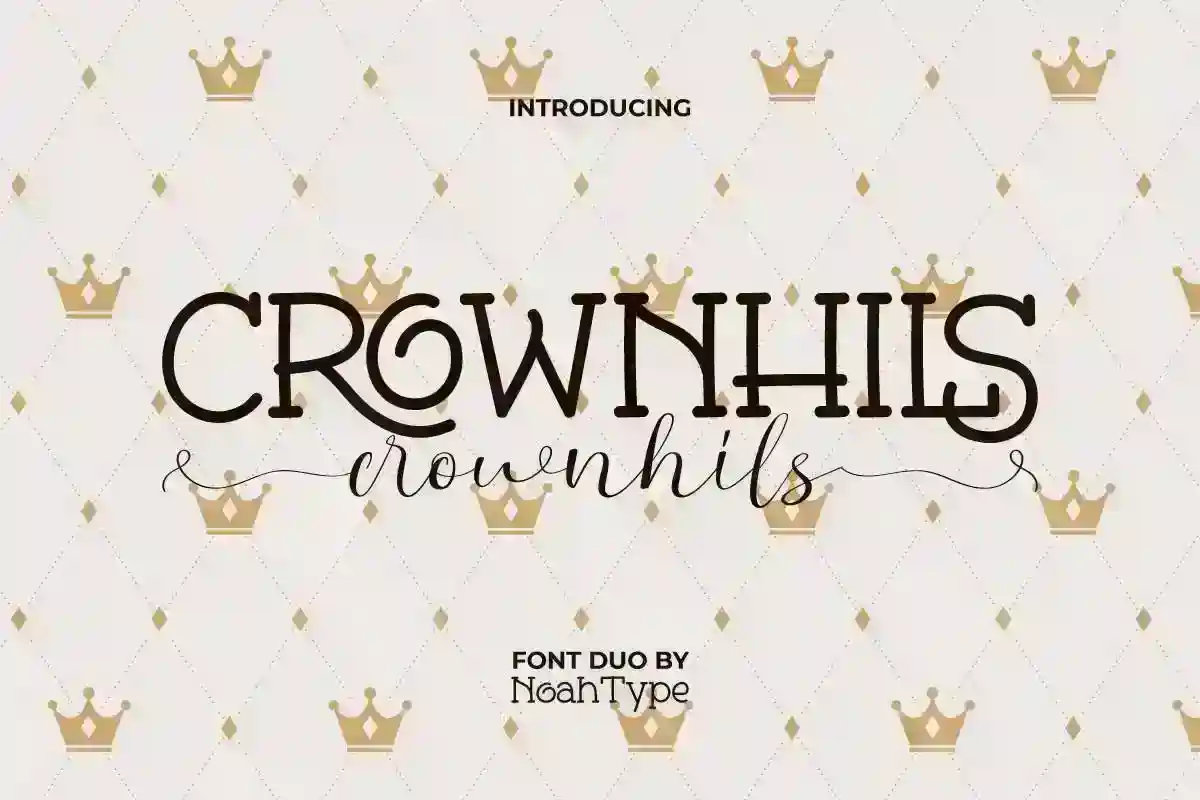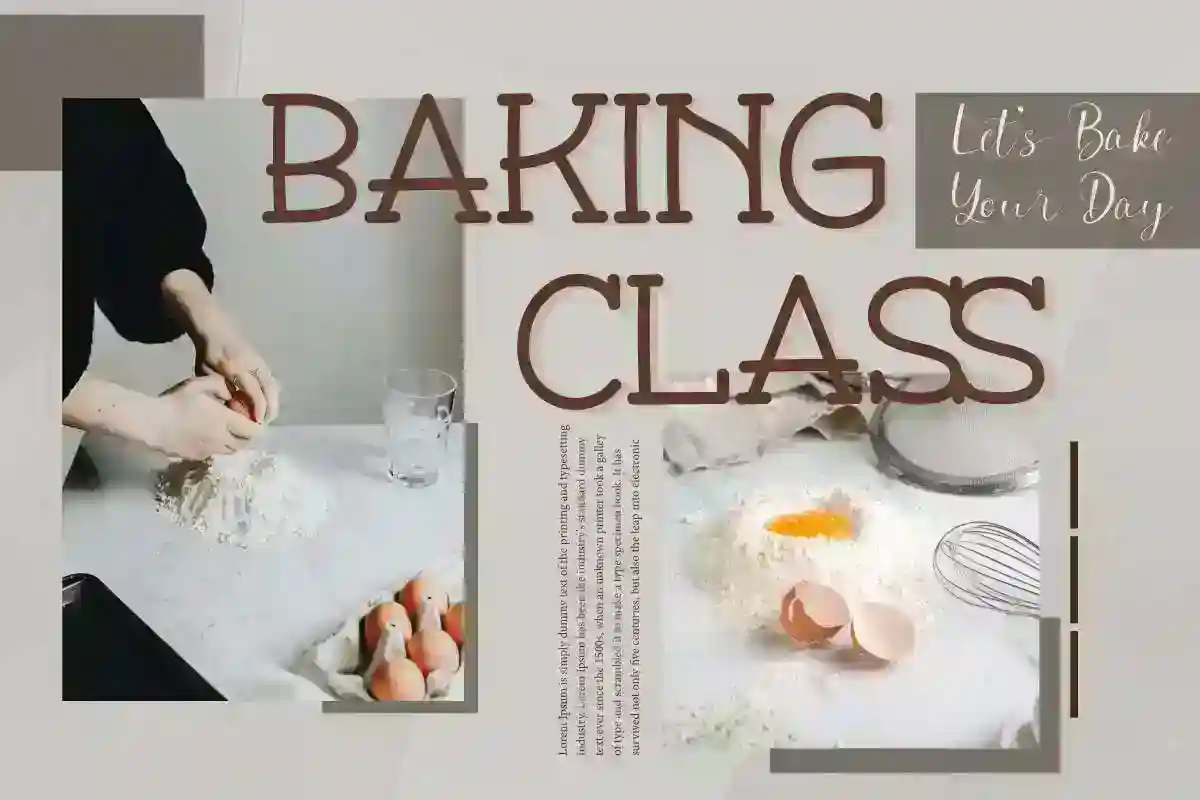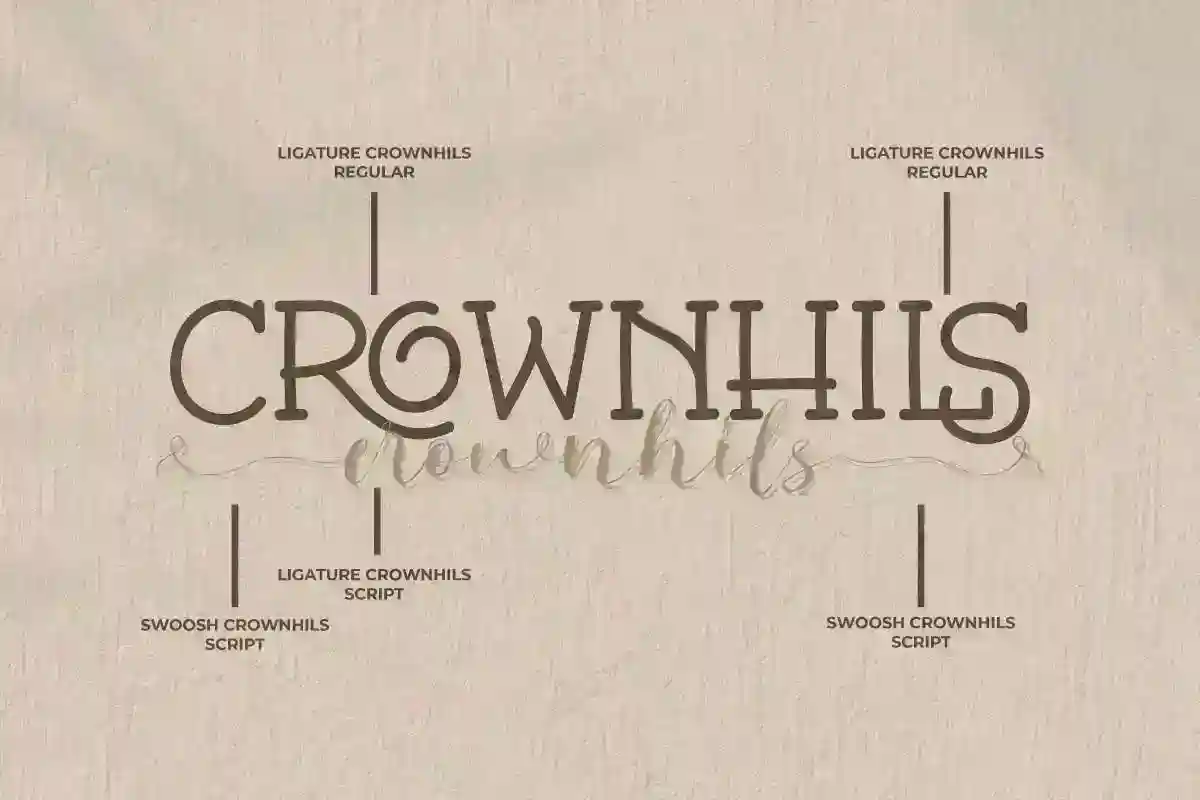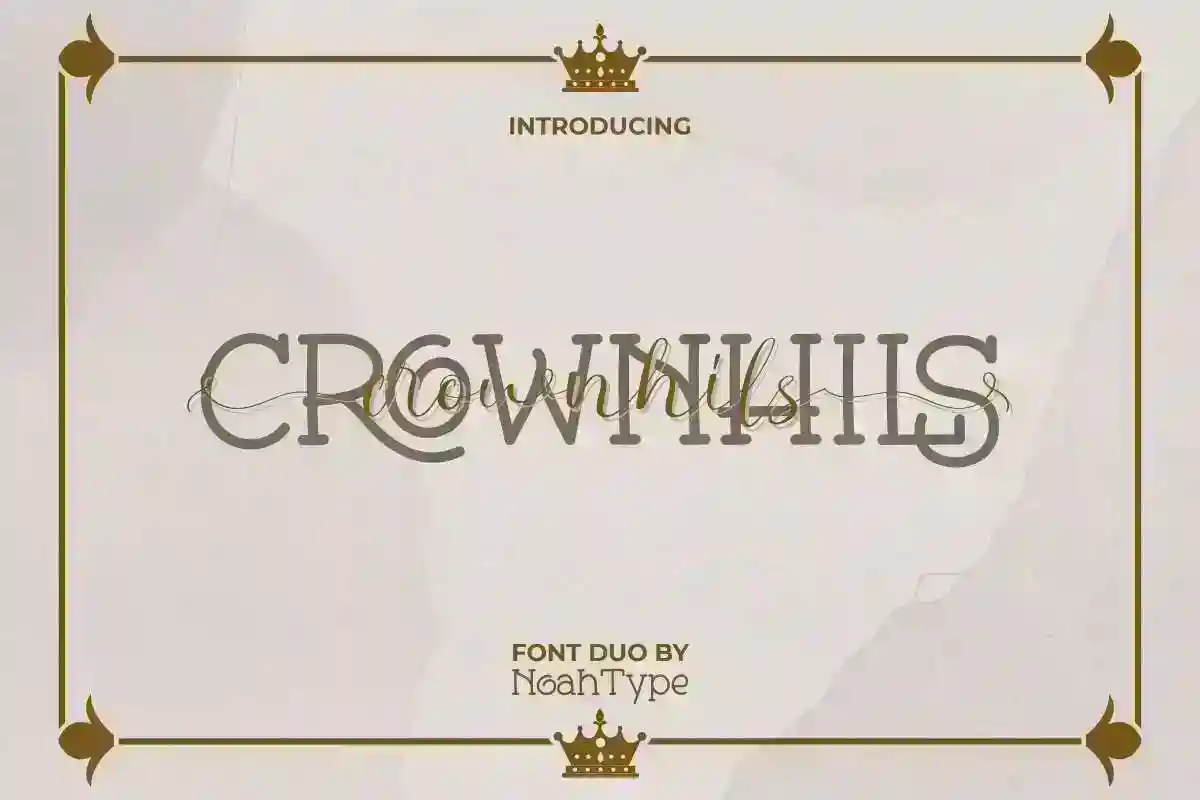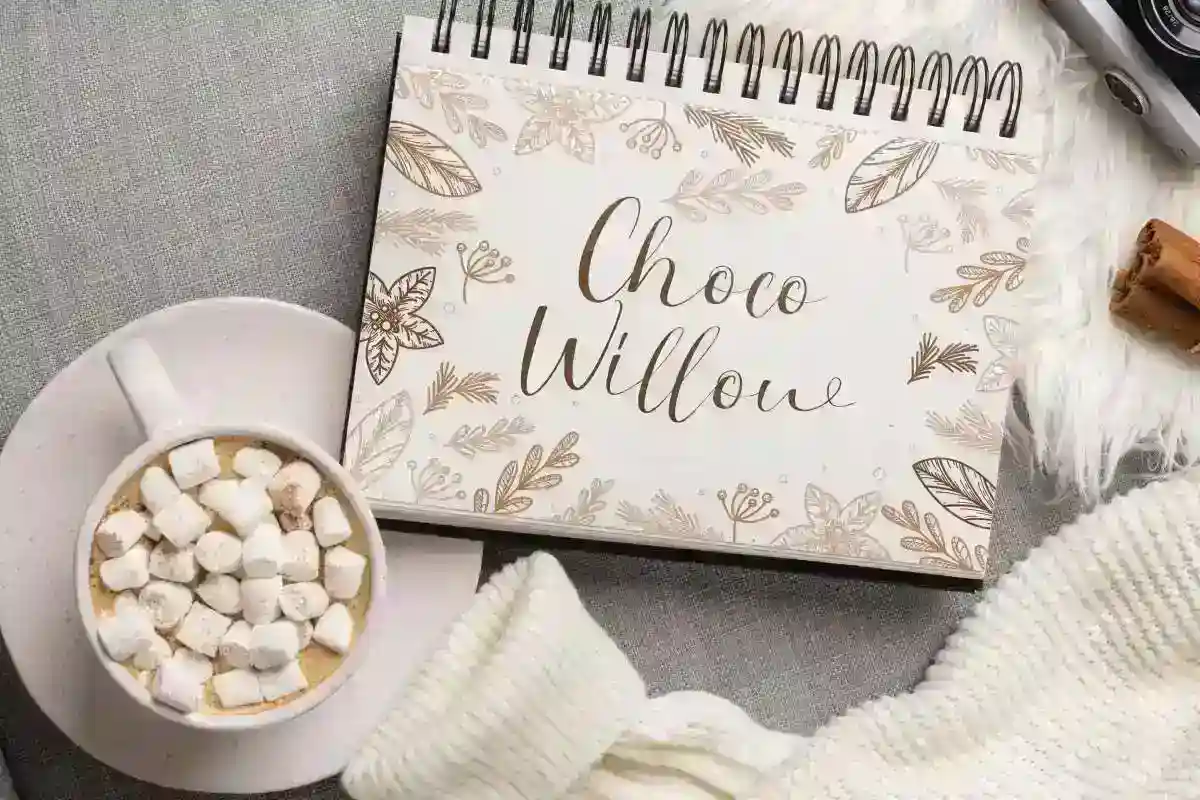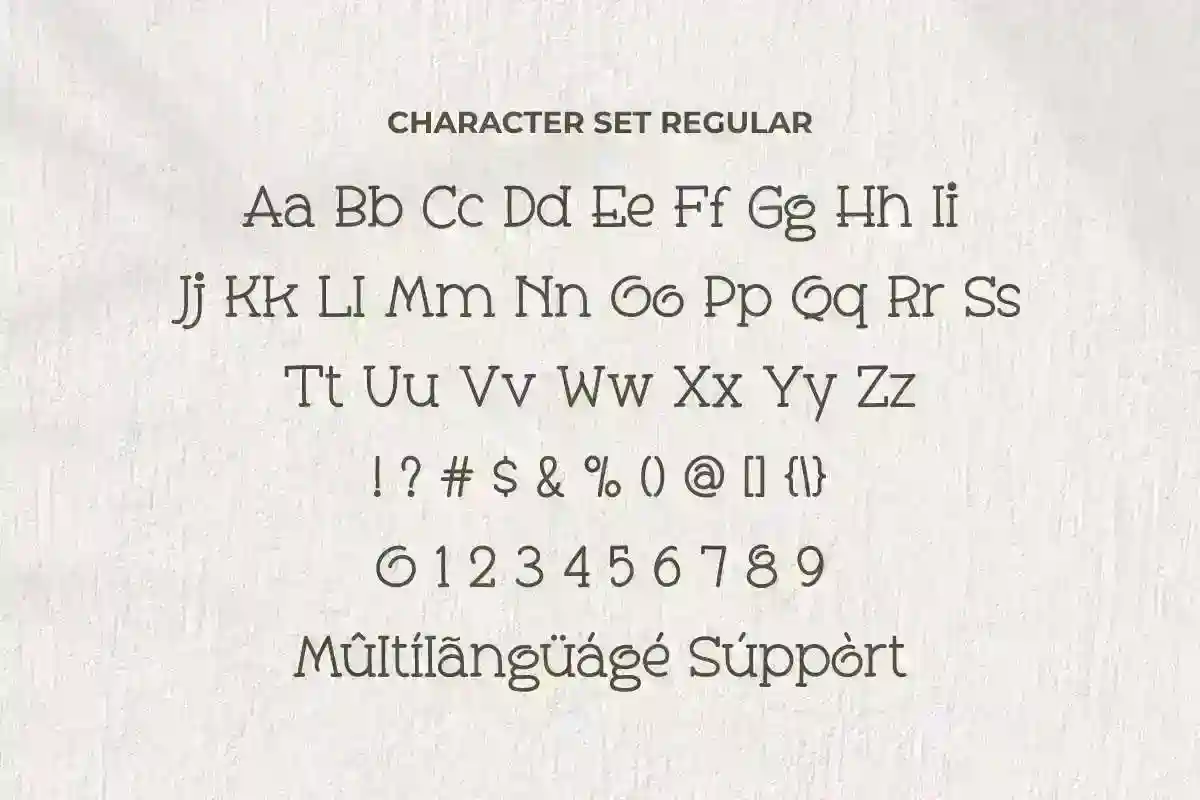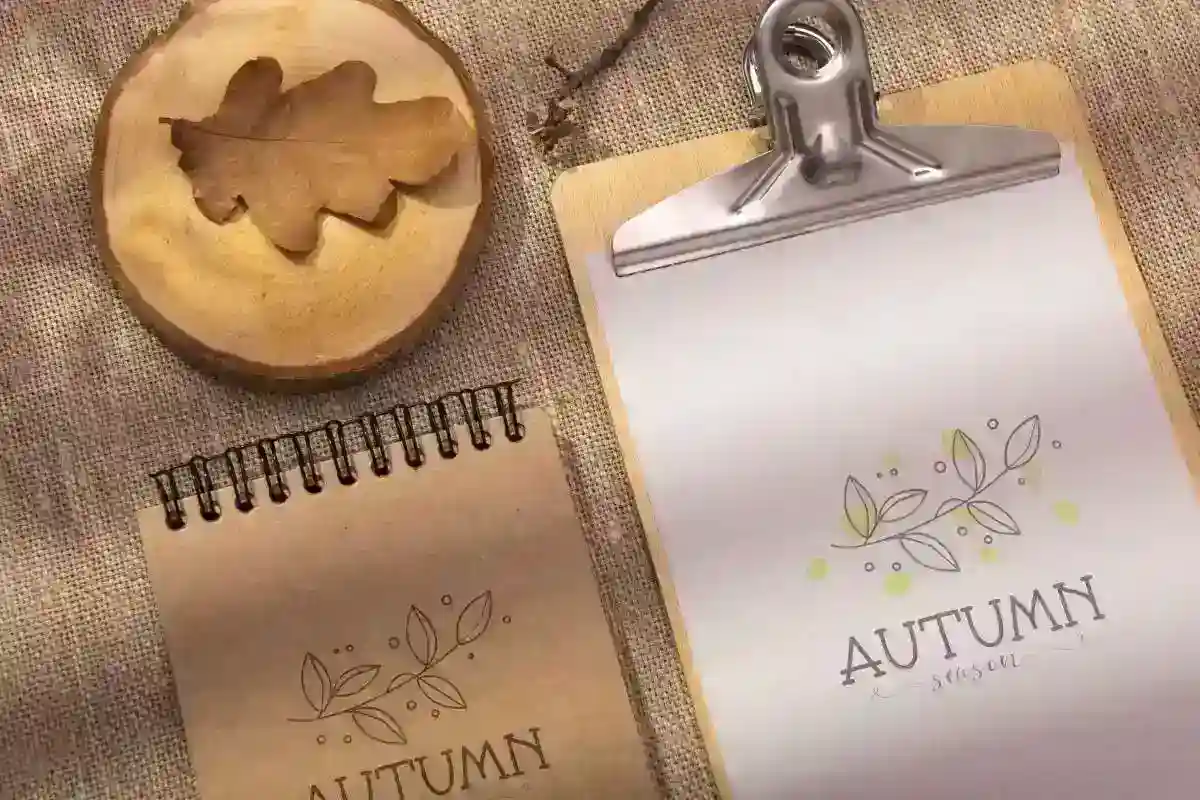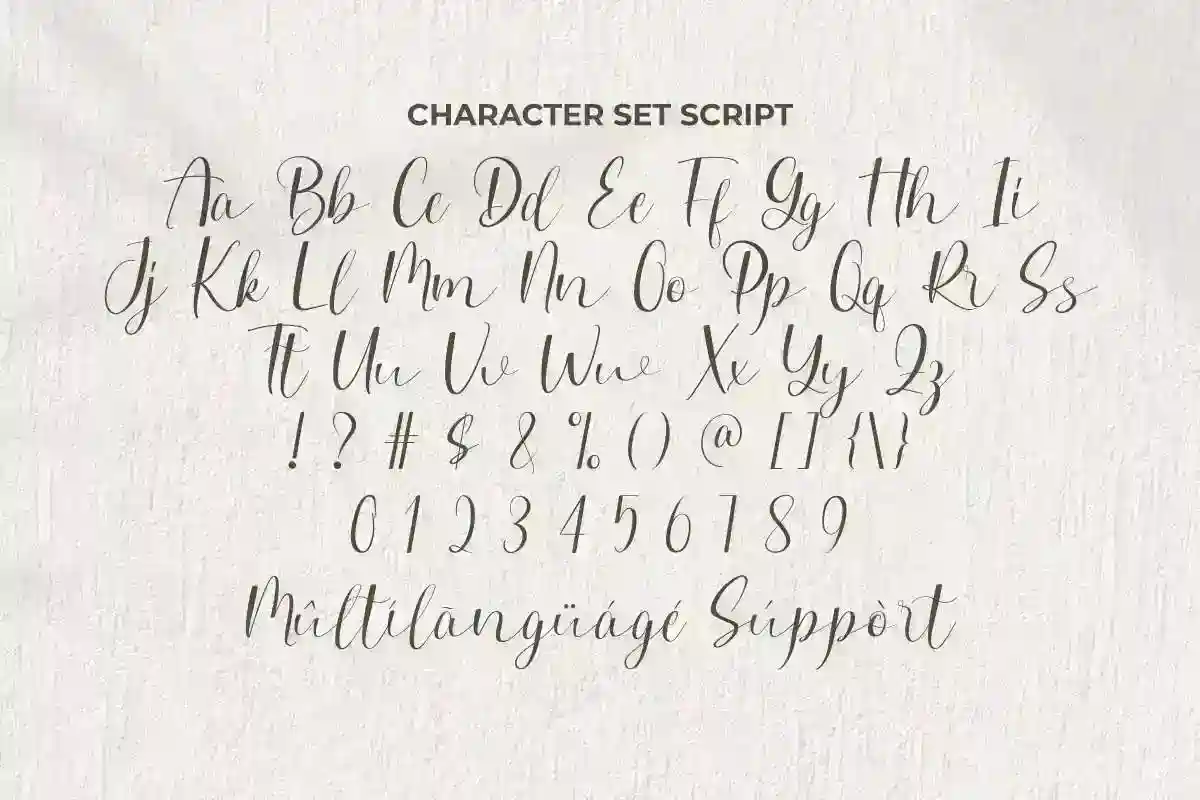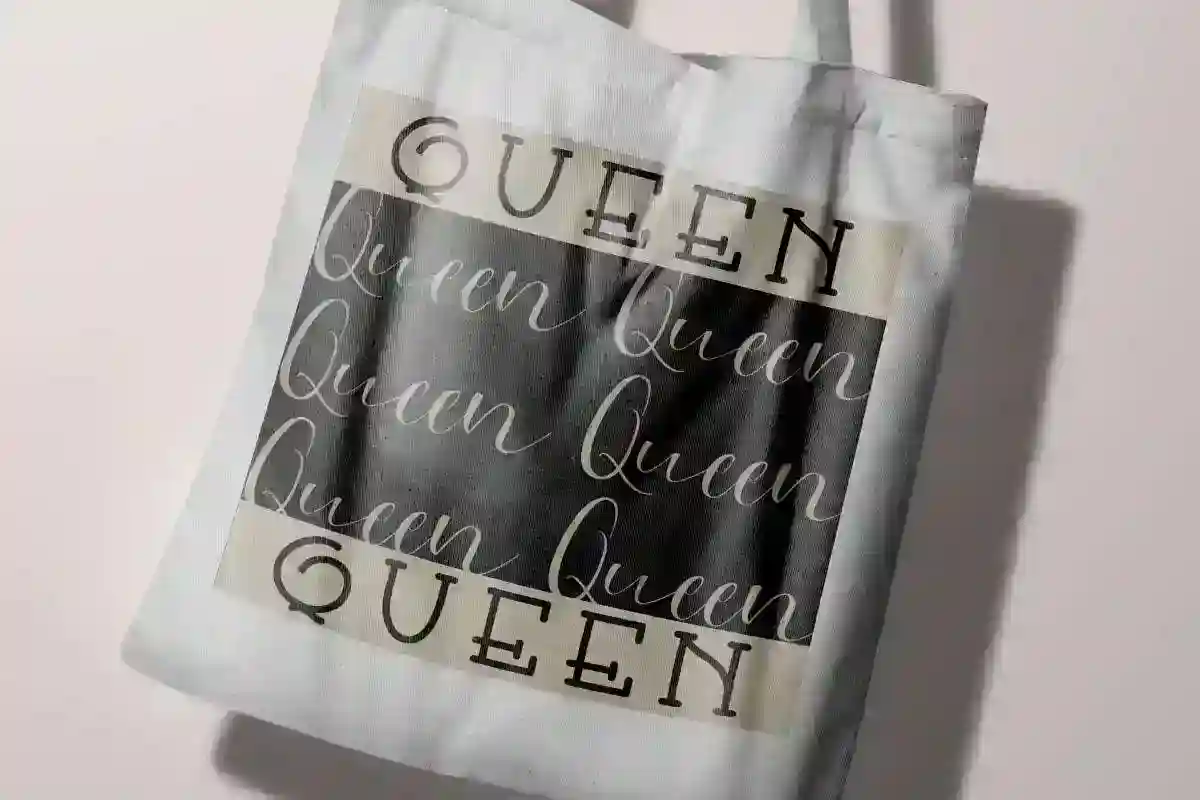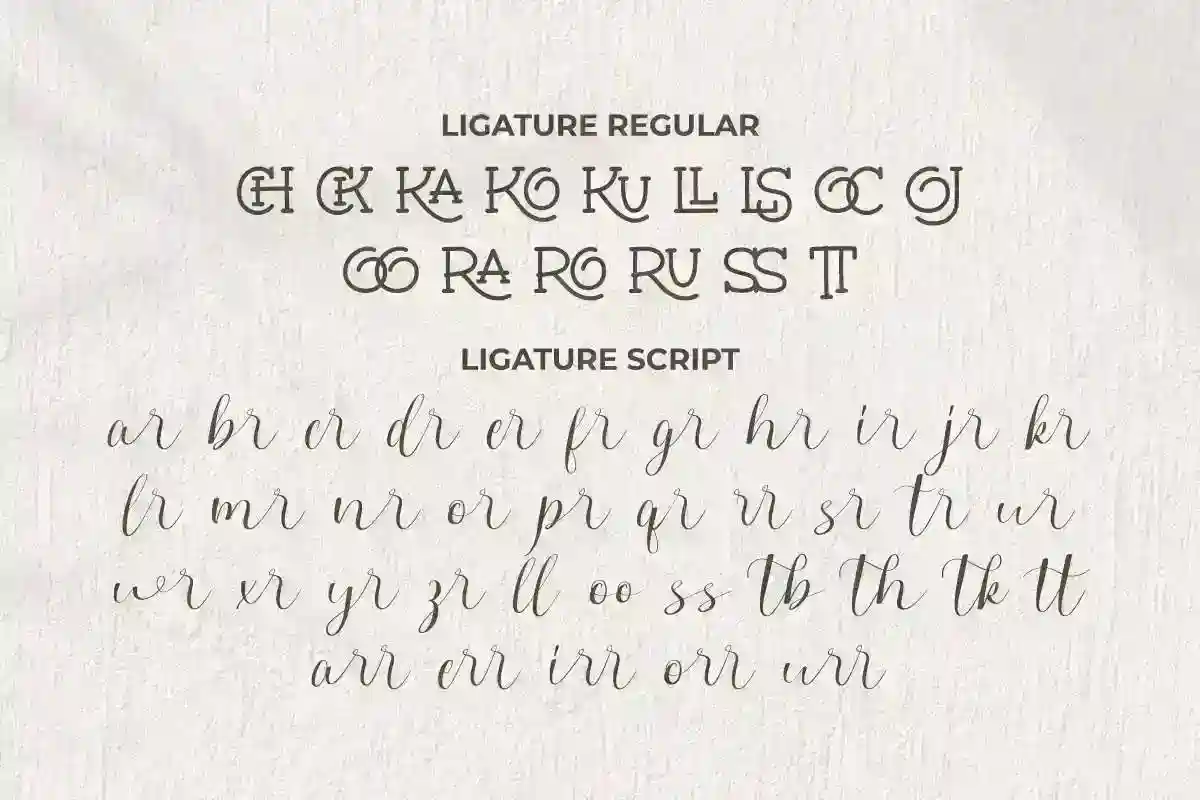
Crownhils Font is beautiful font duo by NoahType Studio. The font comes with two different style: unique serif display and calligraphy script inspired by royal typography made with modern touch and easy to read. It will be amazing for any industry: architect, bakery and cookies, coffee shop, cooking class, fashion, movie, publishing and printing, writer, and any project that requires a royal look!
Crownhils Font includes full set of Uppercase and Lowercase Basic Characters, Numerals and Punctuation. Also it contains ligature characters and swoosh to make your designs have an awesome look and perfect for many projects such as billboard, blog headers, business card, label, magazine display, mockup design, product packaging, quote, title, tote bag custom, and more.
Crownhils Font supports multilingual languages (including multiple currency symbols) with a simple installation, also have ligature characters and swoosh options that you can select and use to make it standout. The font will be ready to use both on Windows machine or Mac. It work well on Adobe software such as Illustrator, Photoshop and several other software.